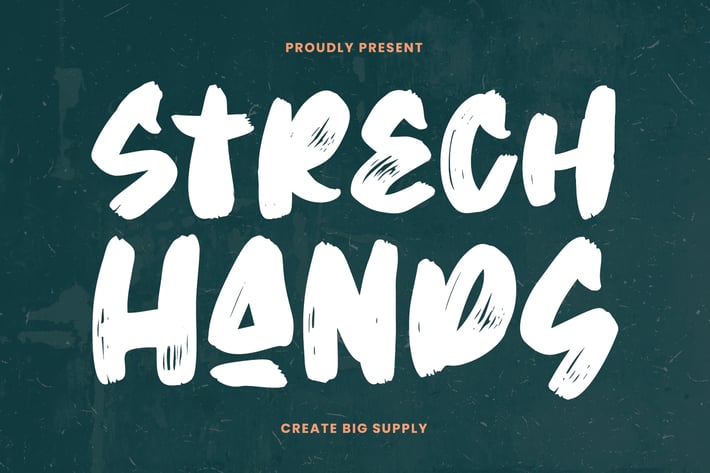
Strech Hands - Bold Brush Font
Strech Hands Brush is a cool, strong, bold, natural, brushed and stroked display font. Whatever the topic, this font will be a great asset to your font library, as it has the potential to enhance any creation.